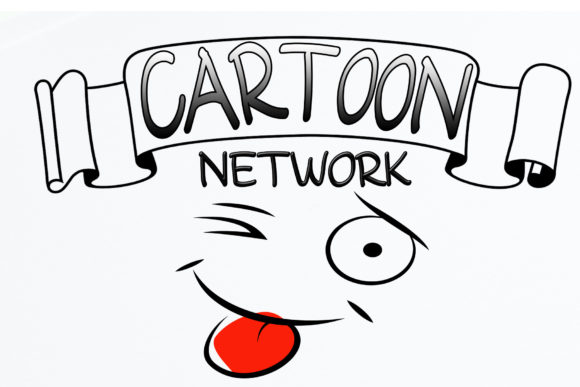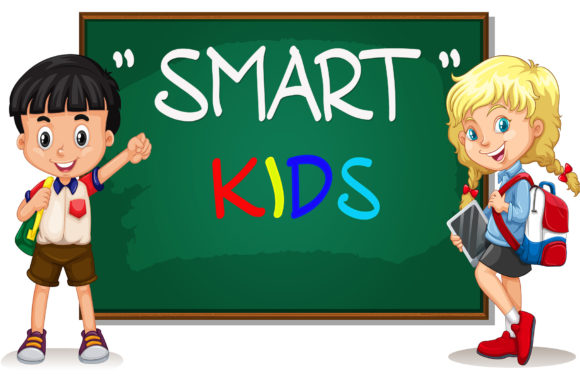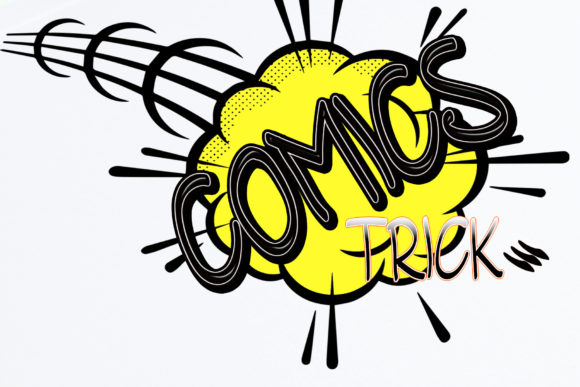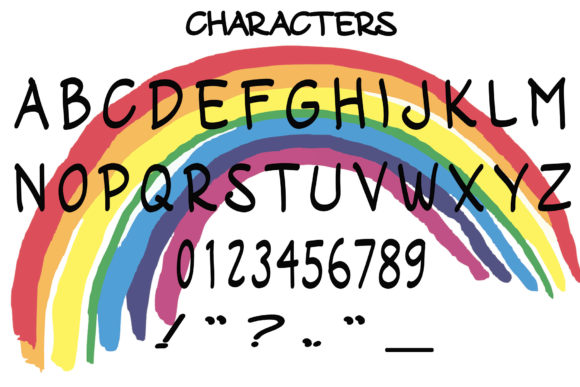
Adding a Touch of Handmade Charm to Your Designs
As a designer, you’ve probably experienced that moment when you’re brainstorming ideas and suddenly, a spark of creativity hits you. You imagine a chalkboard filled with colorful quotes, or a handwritten note that adds a personal touch to a project. It’s moments like these that remind us of the beauty of handwritten typography.
Introducing the Cartoonations Font, a simple yet charming script font that’s perfect for creating that authentic, handwritten look. With its natural and neat design, Cartoonations Font is ideal for teaching materials, chalkboard quotes, and any other project that needs a personal touch. This versatile font is a valuable addition to any designer’s toolkit, allowing you to add a realistic and handmade feel to your designs.
Cartoonations Font Key Features
- Unique Characteristics: Cartoonations Font features a unique blend of hand-drawn and digital elements, creating a playful and whimsical feel. The font includes a range of ligatures, swashes, and flourishes to add an extra touch of personality.
- Font Styles: The font family includes a range of styles, from casual and cursive to bold and sans-serif, allowing designers to create a consistent look and feel across their designs.
Cartoonations Font Review
I recently had the chance to play around with the Cartoonations font, and here’s my honest take on it.
- The font is incredibly versatile, suitable for a wide range of applications, from children’s books to advertisements.
- It’s playful, yet still legible, making it perfect for adding a touch of whimsy to your designs.
- The font includes a variety of styles and weights, giving you plenty of options to customize your design.
- The font is well-suited for digital use, looking great on screens and in print.
- The font may not be suitable for professional or corporate use, as it’s a bit too playful for those applications.
- The font’s whimsical nature may make it difficult to use in situations where a more serious tone is required.
- The font may not be as customizable as some other fonts, limiting your ability to tailor it to your specific design needs.
Overall, I think the Cartoonations font is a fun and useful addition to any designer’s toolkit. While it may have some limitations, it’s a great choice for projects that require a playful touch.
Tips for Getting the Most Out of Cartoonations Font
Use Cartoonations font to create playful and whimsical designs.
Combine with bright colors and bold graphics to add visual interest.
Use Cartoonations font for:
Children’s book covers and illustrations.
Party invitations and decorations.
Advertising and promotional materials.
Alternatives to Cartoonations Font
Pacifico Font is a beautiful, modern script font ideal for creating elegant and sophisticated designs. It’s perfect for use in wedding invitations, branding, and packaging. Pacifico Font has a more refined and polished look compared to Cartoonations Font, making it suitable for high-end designs.
Great Vibes Font is a fun, energetic script font that’s perfect for creating lively and playful designs. It’s ideal for use in social media graphics, advertisements, and youth-oriented projects. Great Vibes Font has a more casual and laid-back feel compared to Cartoonations Font, making it suitable for designs that require a carefree vibe.